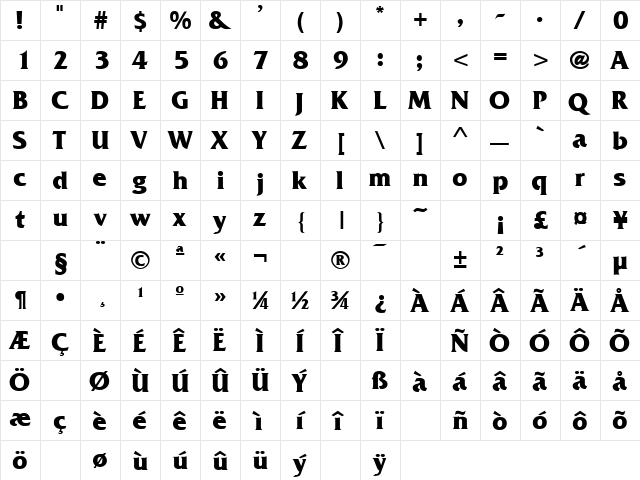
Keep Talking 2 Bold Font Preview
Keep Talking 2 Bold
Design Context for Keep Talking 2 Typeface
Keep Talking 2 offers clean, dependable letterforms without strong stylistic allegiance, making it a practical choice for designers who need flexibility. Its bold stroke weight gives it real presence on the page.